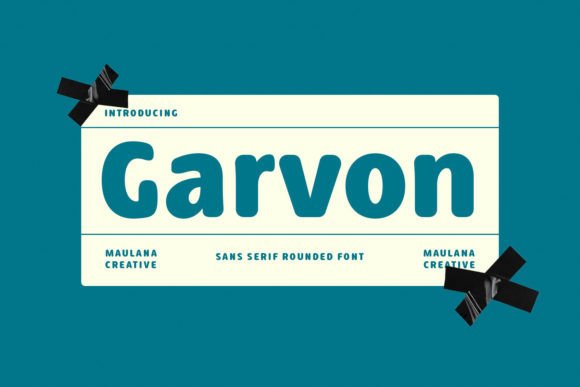
Introducing the latest addition to our collection of fonts for businesses - Garvon Font! Created by Maulana Creative, this sans-serif font is perfect for modern and relaxed designs. If you're looking for a font that's approachable and friendly yet professional, Garvon is the perfect choice.
The Garvon font is designed with clean and casual lines that give it a laid-back feel. This makes it ideal for branding and advertising projects, especially if you want to create a modern and approachable image for your business. With its PUA encoding, you can easily access all the delightful glyphs and swashes to make your designs even more creative and eye-catching.
Whether you're creating a new logo, designing a business card, or working on a branding project, Garvon is the font you need to make your designs stand out. Its casual yet professional look is perfect for any business that wants to create a modern, approachable image. Plus, its clean lines make it easy to read, so you can be sure that your message will be conveyed clearly.